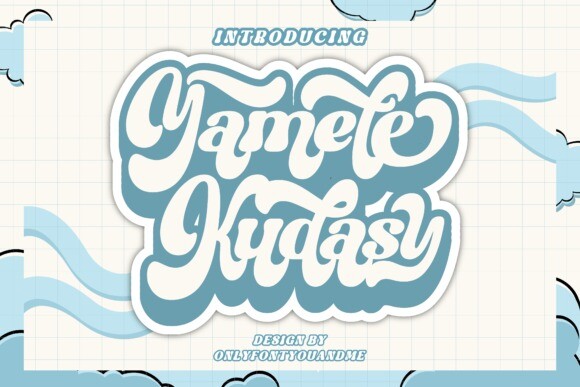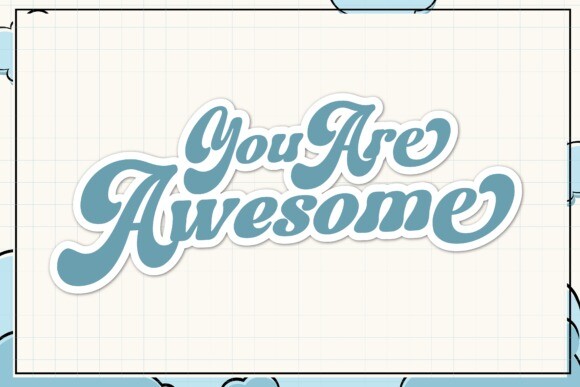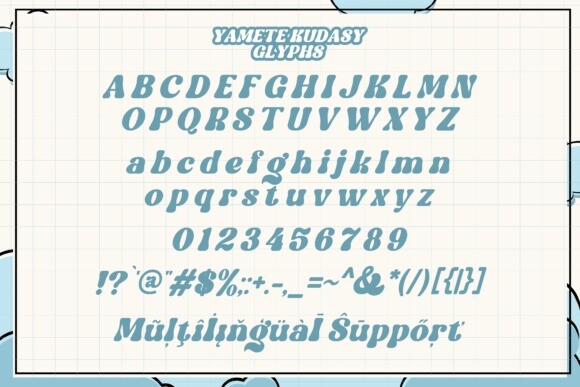
Yamete Kudasy Font
Yamete Kudasy is a playful, cute, and fun display font. This font is PUA encoded which means you can access all of the glyphs and alternates with ease! It will look great on T-shirts, stickers, headlines, magazines, logos, branding and so much more!